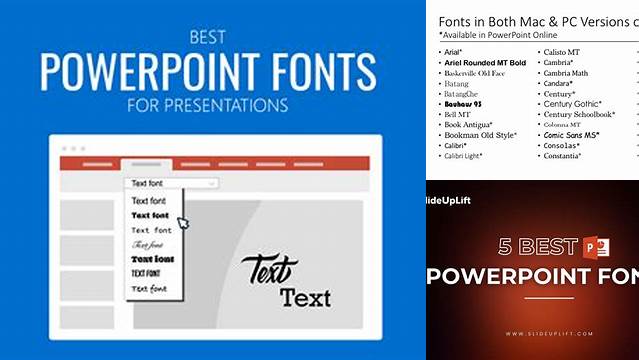
Best PowerPoint Fonts For Stunning Posters
Hey guys! Choosing the right font for your PowerPoint posters can make a huge difference. A good font not only grabs attention but also ensures your message is clear and memorable. Let’s dive into some of the best PowerPoint fonts you can use to create stunning posters that stand out from the crowd.
H2: Understanding Font Psychology for Poster Design
Font psychology, guys, is all about how different typefaces can evoke different emotions and associations. When creating PowerPoint posters, it's crucial to understand this to pick a font that aligns with your message. For instance, serif fonts like Times New Roman often convey a sense of tradition and authority, making them suitable for formal or academic posters. On the other hand, sans-serif fonts like Arial or Helvetica tend to feel modern and clean, perfect for contemporary designs. Consider the overall tone you want to set. A playful poster might benefit from a whimsical, handwritten-style font, while a serious, data-driven poster would do better with a straightforward, legible font. Also, remember that consistency is key. Stick to a maximum of two or three fonts in your poster to maintain a cohesive and professional look. Experiment with different font pairings to see what works best, but always prioritize readability and visual appeal. Remember, the best PowerPoint fonts enhance your message, not distract from it. Understanding font psychology helps you make informed choices that resonate with your audience, ensuring your poster leaves a lasting impression.
H2: Top 5 Serif Fonts for Professional Posters
When aiming for a professional look in your PowerPoint posters, serif fonts are your best bet, guys. These fonts, characterized by the small decorative strokes (serifs) at the end of letters, often convey a sense of authority, tradition, and elegance. Here are five standout serif fonts that can elevate your poster design. First up is Times New Roman, a classic choice known for its readability and versatility. It's a safe bet for formal posters where clarity is paramount. Next, we have Garamond, a refined and elegant font that adds a touch of sophistication. Its slightly smaller x-height gives it a unique visual appeal. Then there’s Georgia, designed specifically for screen readability, making it perfect for posters that will be viewed digitally. Its generous letter spacing enhances clarity, even from a distance. Fourth on the list is Book Antiqua, a font that exudes warmth and readability, making it ideal for posters with a lot of text. Its softer appearance makes it less imposing than some other serif options. Finally, we have Didot, a high-contrast font that adds a touch of luxury and style. While it may not be the most readable for large blocks of text, it works wonders for headings and titles. Choosing the best PowerPoint fonts from this serif selection ensures your poster projects professionalism and credibility. Remember to consider the overall design and content of your poster when making your final decision, ensuring the font complements your message perfectly.
H2: 5 Best Sans-Serif Fonts for Modern Poster Designs
For a modern and clean aesthetic in your PowerPoint posters, sans-serif fonts are the way to go, guys. These fonts lack the small decorative strokes found in serif fonts, giving them a streamlined and contemporary look. Here are five of the best sans-serif fonts that can bring a fresh and modern vibe to your poster designs. First, there's Arial, a ubiquitous and highly legible font that works well in various contexts. Its simplicity ensures readability, making it a solid choice for posters with a lot of information. Next up is Helvetica, another classic sans-serif font known for its neutrality and clarity. Its clean lines make it easy on the eyes, perfect for conveying information quickly and efficiently. Then we have Open Sans, a humanist sans-serif font designed with readability in mind. Its open forms and neutral yet friendly appearance make it a great choice for a wide range of posters. Fourth on the list is Calibri, the default font in many Microsoft Office applications. Its soft, rounded edges give it a more approachable feel than some other sans-serif options. Finally, we have Montserrat, a geometric sans-serif font inspired by urban typography. Its clean, modern lines make it a stylish choice for posters targeting a younger audience. Selecting the best PowerPoint fonts from this sans-serif collection will give your poster a contemporary edge. Always consider the overall theme and message of your poster to ensure the font aligns with your design goals, creating a visually appealing and effective communication tool.
H2: Creative Display Fonts to Grab Attention
When you really want your PowerPoint posters to pop, creative display fonts are the secret weapon, guys. These fonts are designed to be eye-catching and unique, perfect for grabbing attention and making a statement. However, it's crucial to use them sparingly and strategically, as they are often less readable than standard fonts. One fantastic option is Bebas Neue, a tall and condensed sans-serif font that exudes modernity and sophistication. It's ideal for headings and titles that need to stand out. Another great choice is Lobster, a bold and curvy script font that adds a touch of vintage charm. Use it for short, impactful phrases to create a memorable visual element. For a more futuristic feel, consider using Roboto Slab, a slab-serif font with a geometric design. It combines readability with a unique aesthetic, making it suitable for posters that need to convey a sense of innovation. If you're aiming for a playful and whimsical look, try using Pacifico, a casual brush script font that adds a personal touch. It's perfect for posters targeting a younger audience or those with a lighthearted theme. Lastly, consider using Impact, a bold and impactful sans-serif font that commands attention. Its thick strokes and condensed form make it ideal for headlines that need to be seen from a distance. When selecting the best PowerPoint fonts from the display category, always prioritize visual impact and ensure the font complements the overall design of your poster, creating a cohesive and engaging visual experience.
H2: Font Size Matters: Readability at a Distance
Font size is a critical factor in ensuring your PowerPoint posters are effective, guys, especially when they need to be readable from a distance. The goal is to make sure your message is clear and easily digestible, even for viewers who aren't up close. For headings and titles, aim for a font size of at least 36 points, and ideally larger if space allows. This will help grab attention and draw viewers in. Subheadings should be slightly smaller, around 24 to 30 points, to create a clear hierarchy and guide the reader through the information. For the main body text, a font size of 18 to 24 points is generally recommended. This ensures that the text is legible without appearing too overwhelming. When choosing the best PowerPoint fonts, remember that some fonts appear larger or smaller than others at the same point size. For example, a condensed font may need to be slightly larger to maintain readability. Always test your poster by printing it out or viewing it from a distance to ensure that the font sizes are appropriate. Also, consider the viewing environment. In a brightly lit space, you may need to use larger font sizes to compensate for glare. By paying careful attention to font size, you can create posters that are not only visually appealing but also highly effective at communicating your message.